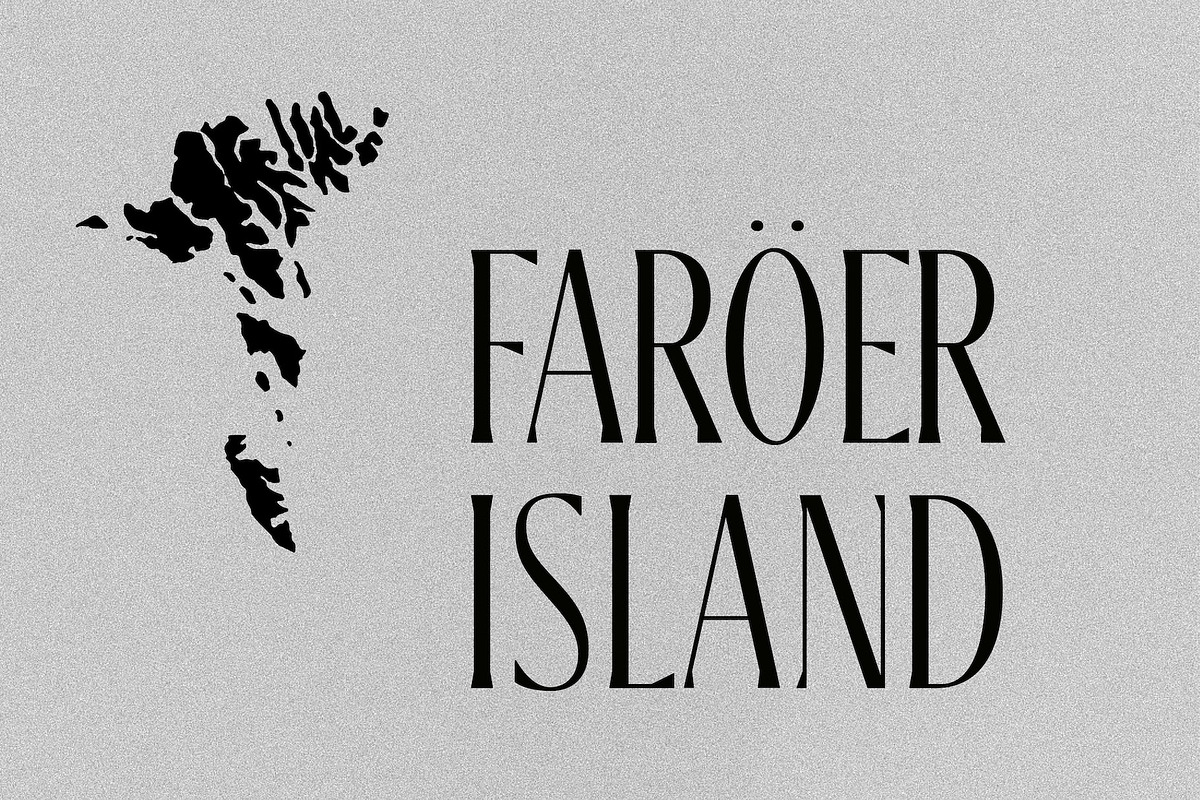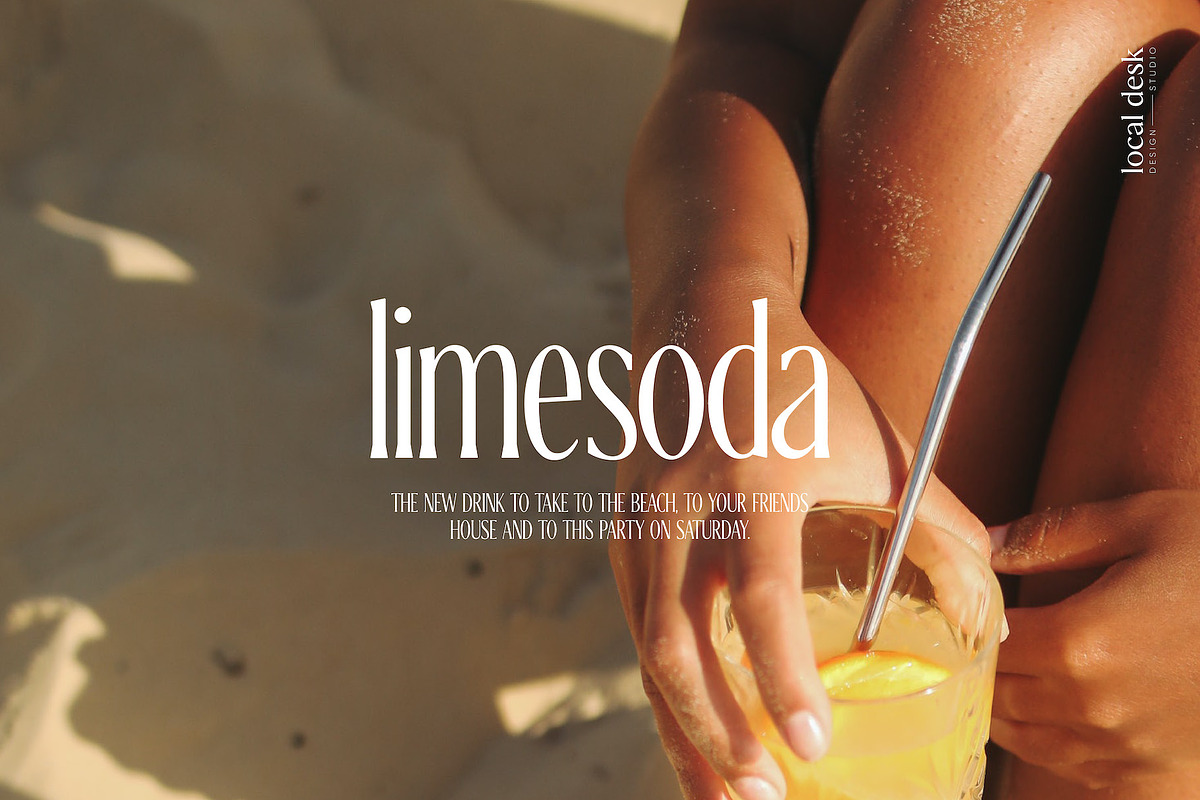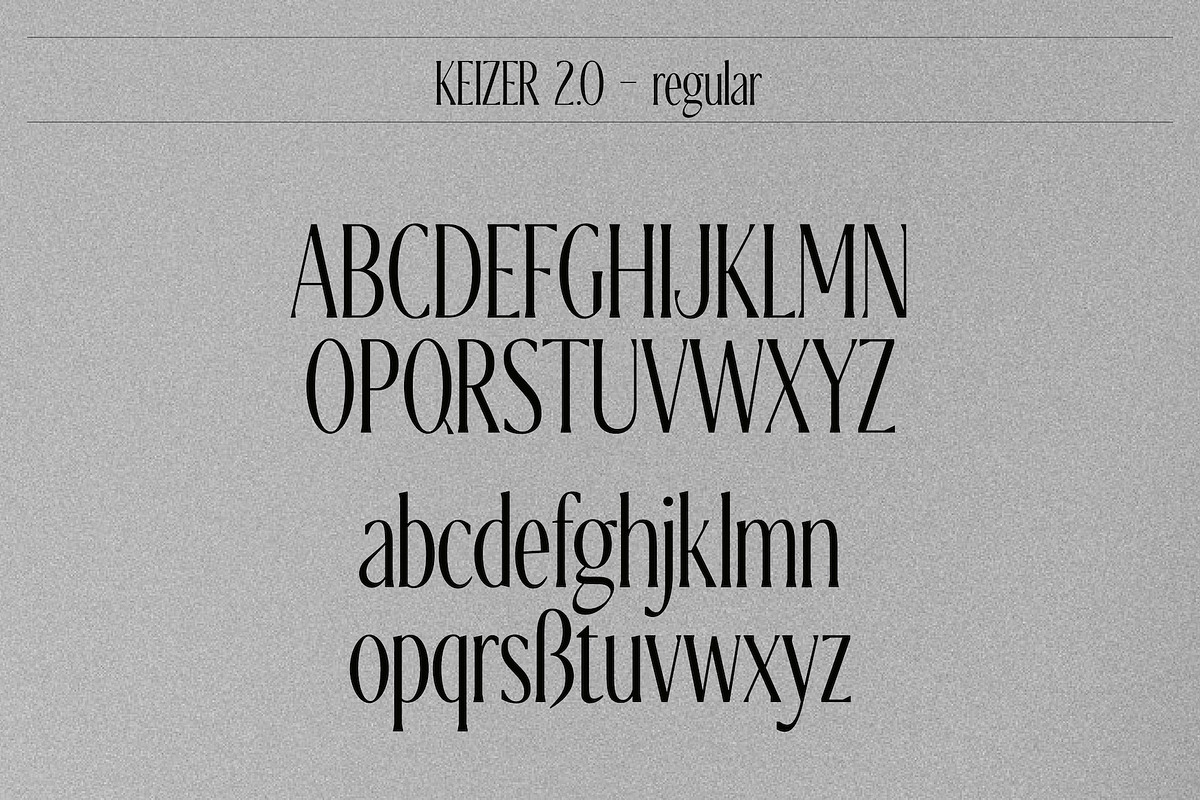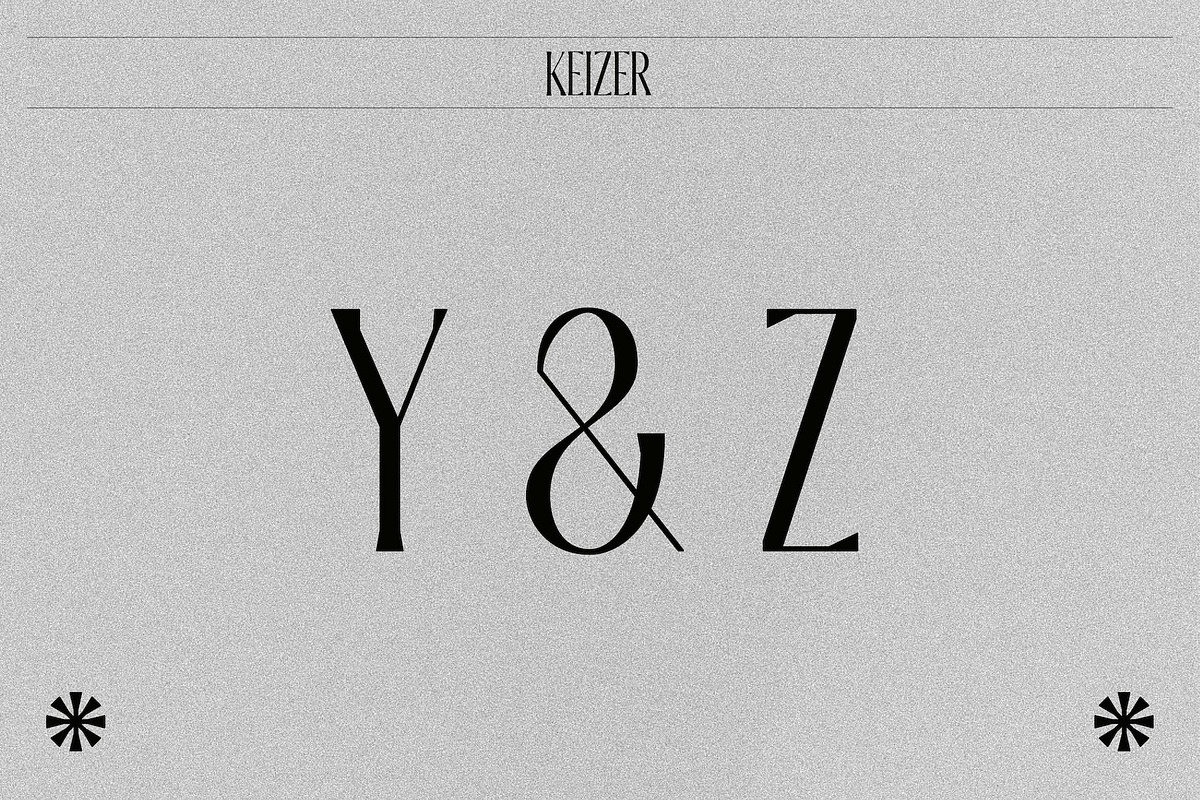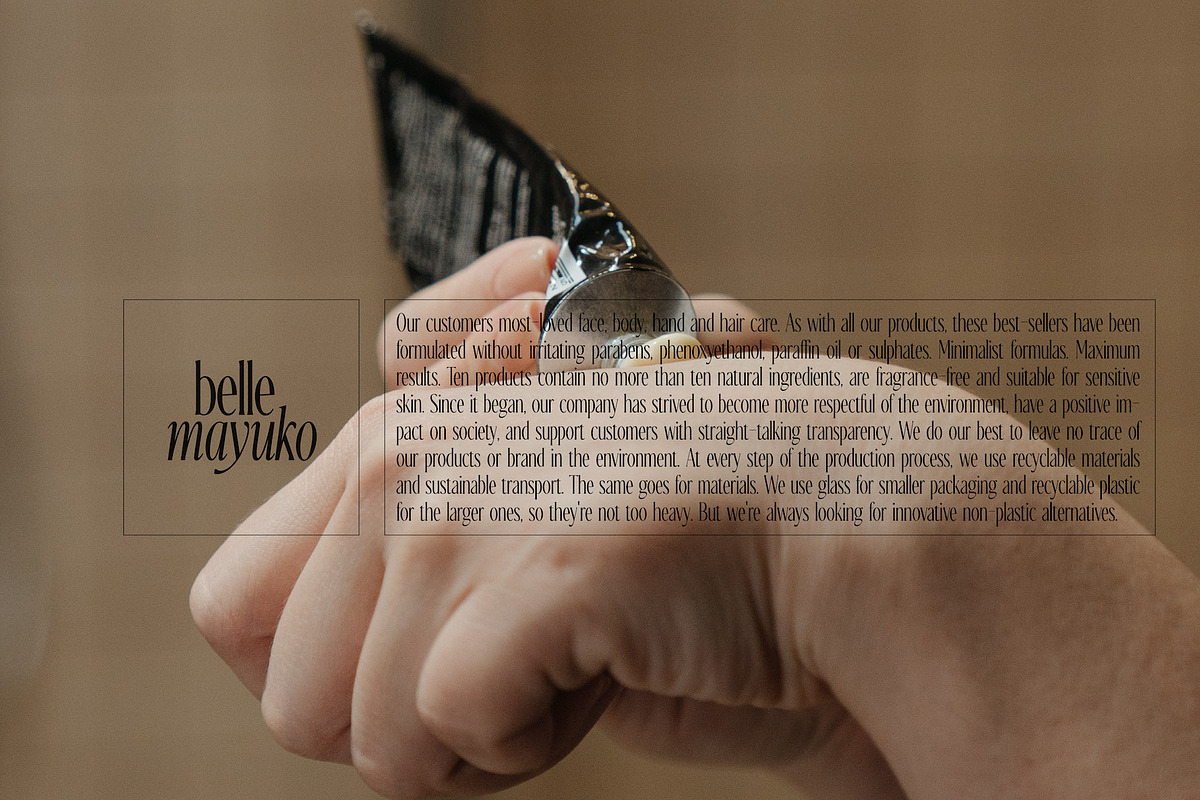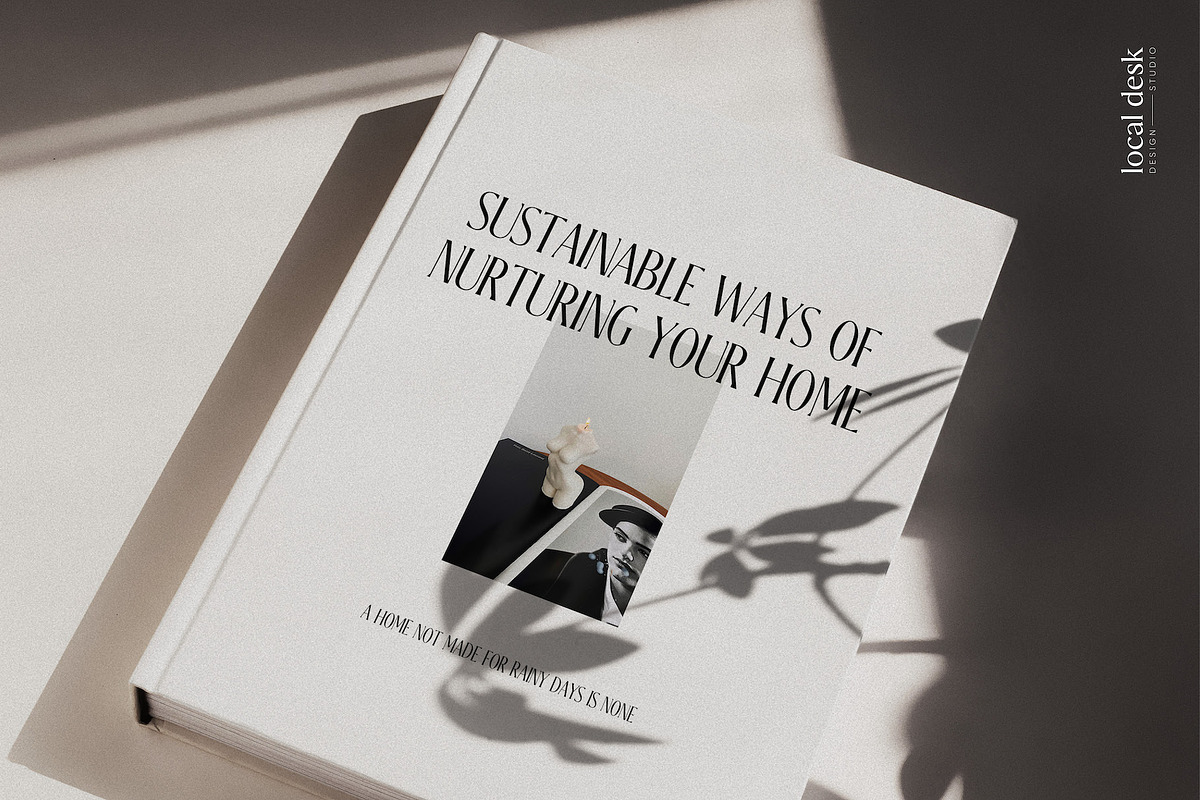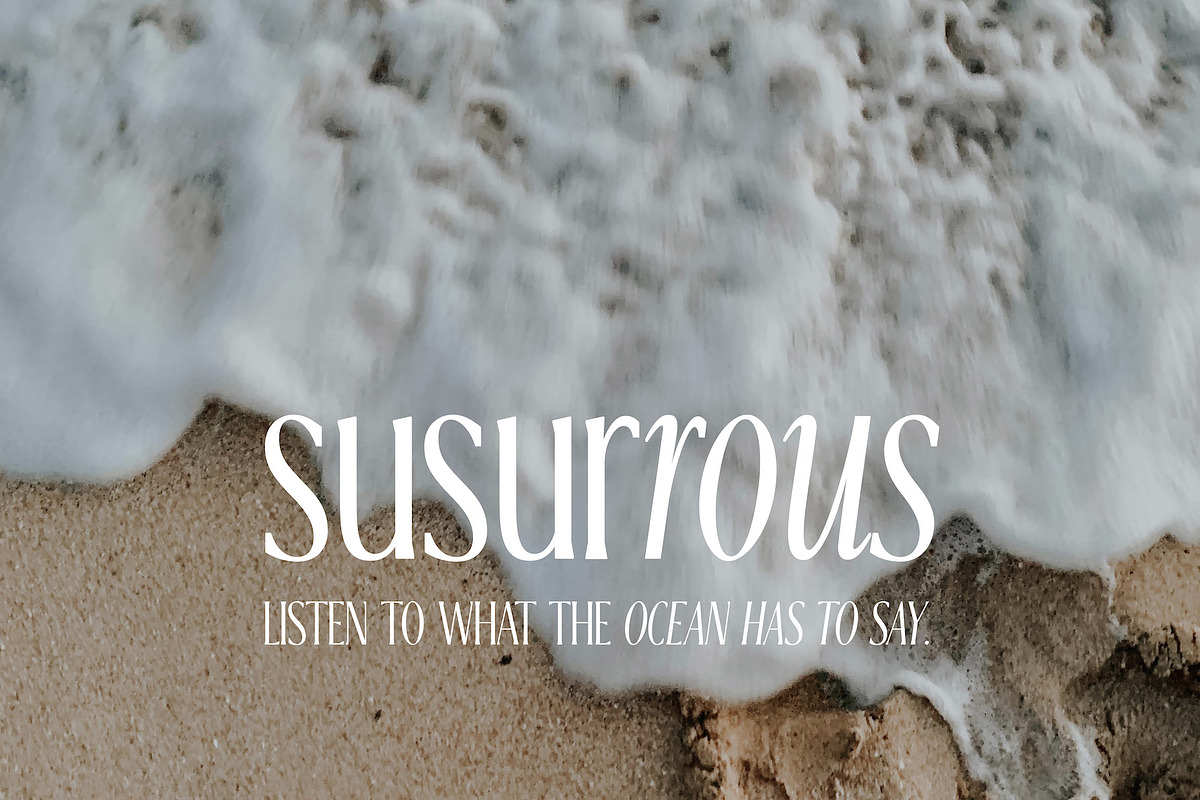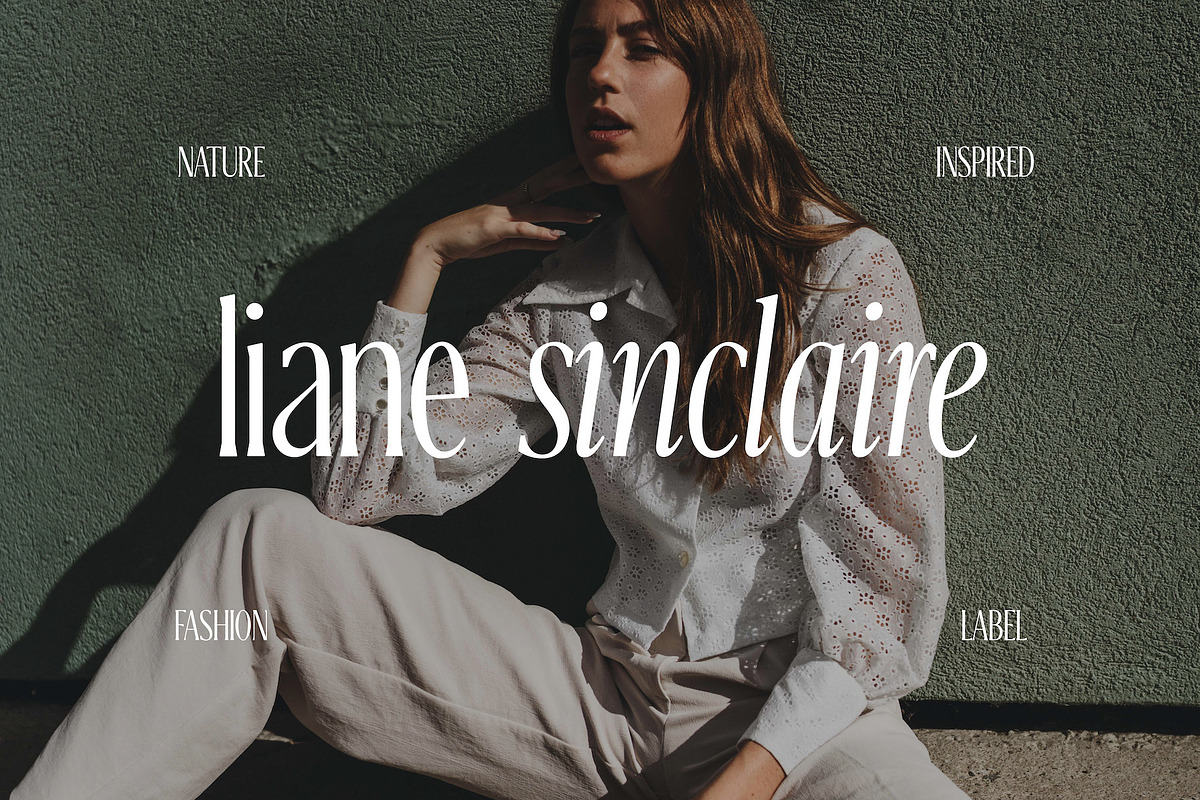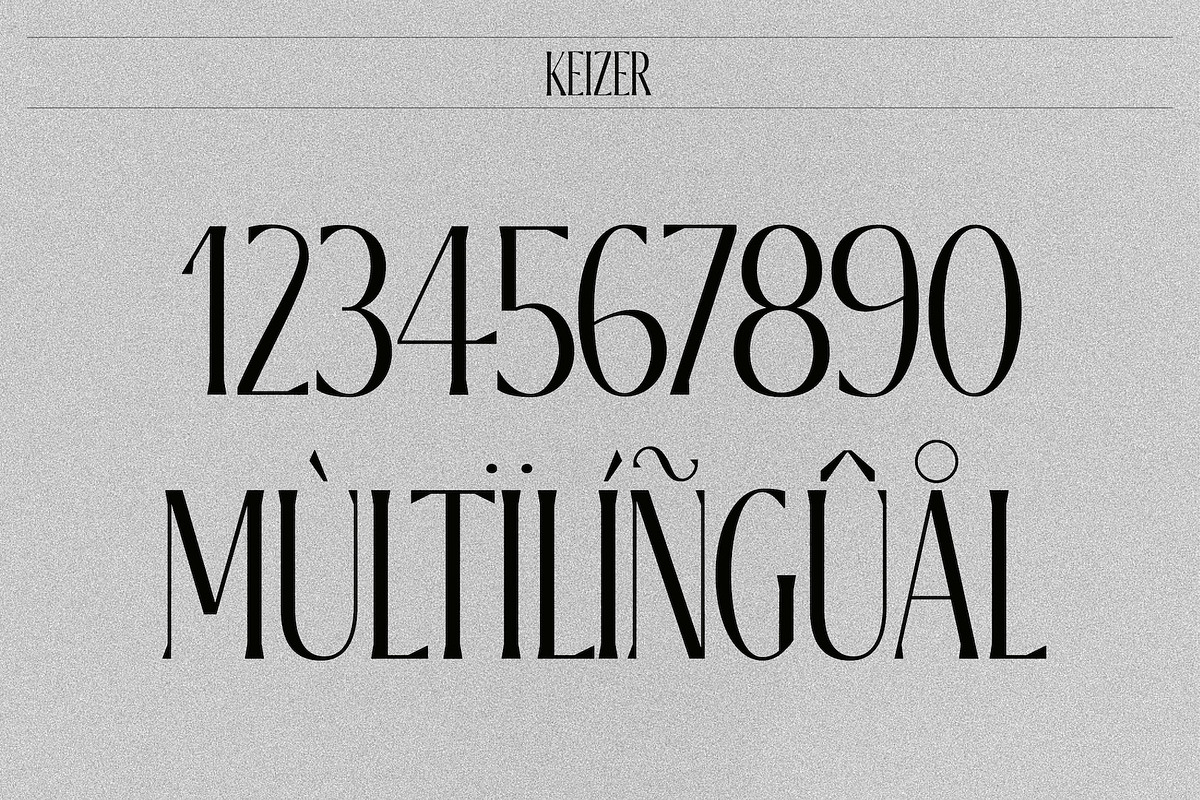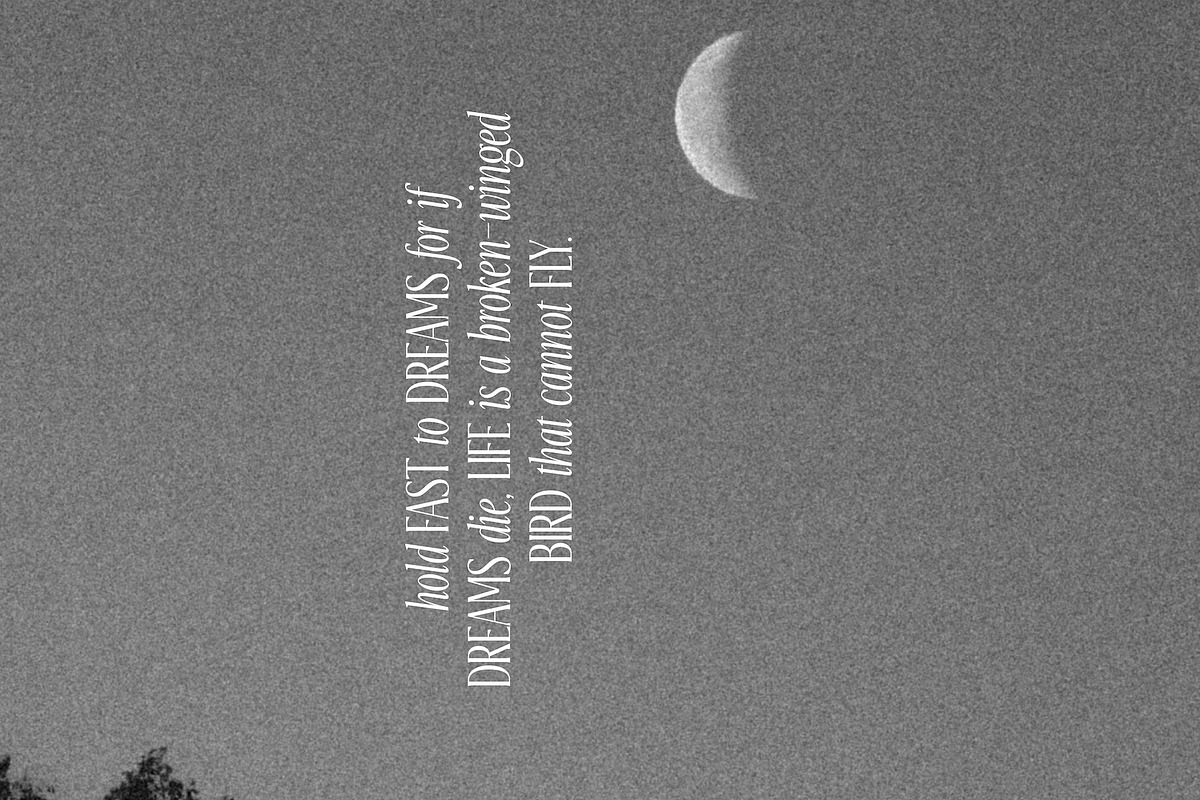
Keizer – Modern & Condensed Serif
Keizer is a distinctive, modern serif typeface with a refined vibe. Unique shapes and contrasting lines create a stylish font that is special & condensed. Keizer is perfectly suited for designing recognizable & modern brands, contemporary packaging, bold statements, websites and so much more!
- Full uppercase & lowercase alphabet (regular & italic)
- Numbers + Punctuation
- Non-English support